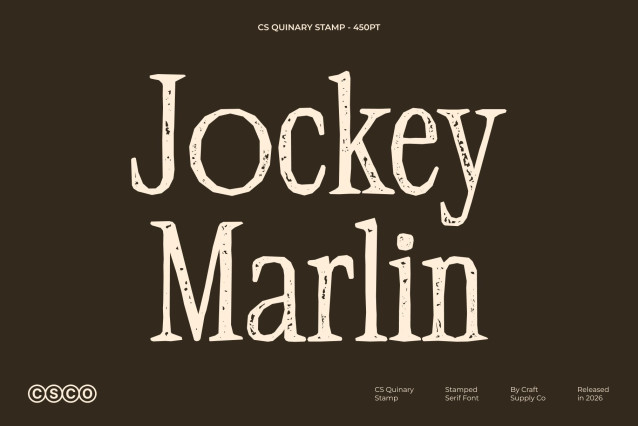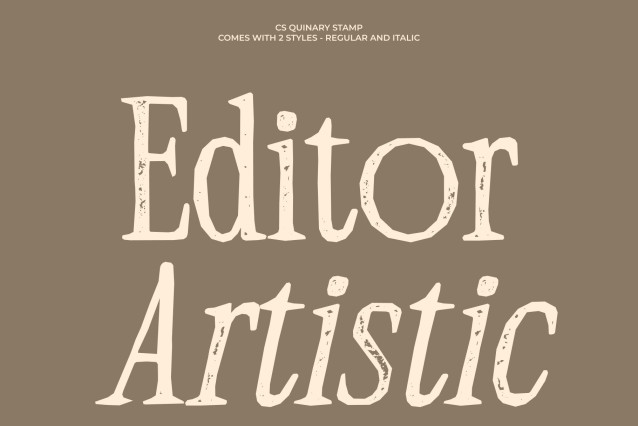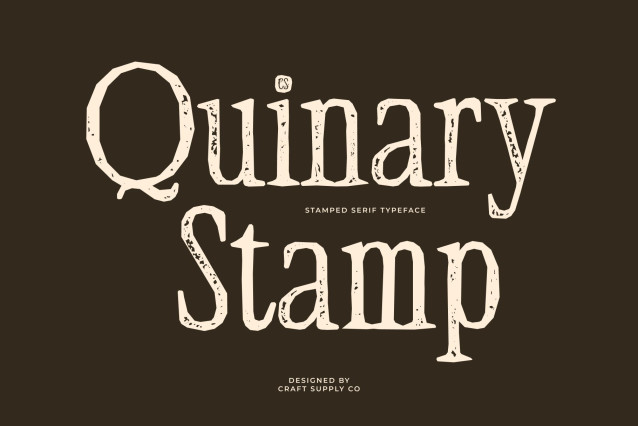
CS Quinary Stamp – Condensed Modern Serif Font: Where Elegant Precision Meets Vintage Sophistication
Slim Proportions with Elongated Serif Elegance
This is a modern serif font designed with slim proportions and elongated serifs that radiate elegance, professionalism, and refined style. Its graceful structure creates a sleek visual rhythm, allowing every composition to feel polished, luxurious, and highly sophisticated.
Condensed Style with Contemporary Sophistication
This font delivers a refined and space-efficient appearance that feels modern and exclusive. The narrow proportions create a strong editorial presence while preserving a graceful and stylish tone, making the font ideal for premium branding and high-end visual design.
Stamped Texture with Vintage Artistic Character
This font introduces a handcrafted texture inspired by traditional print techniques. The slightly rough and organic finish adds vintage character, artistic depth, and authentic old-design charm to every letter. This textured detail enriches the elegant serif forms with warmth and expressive individuality.